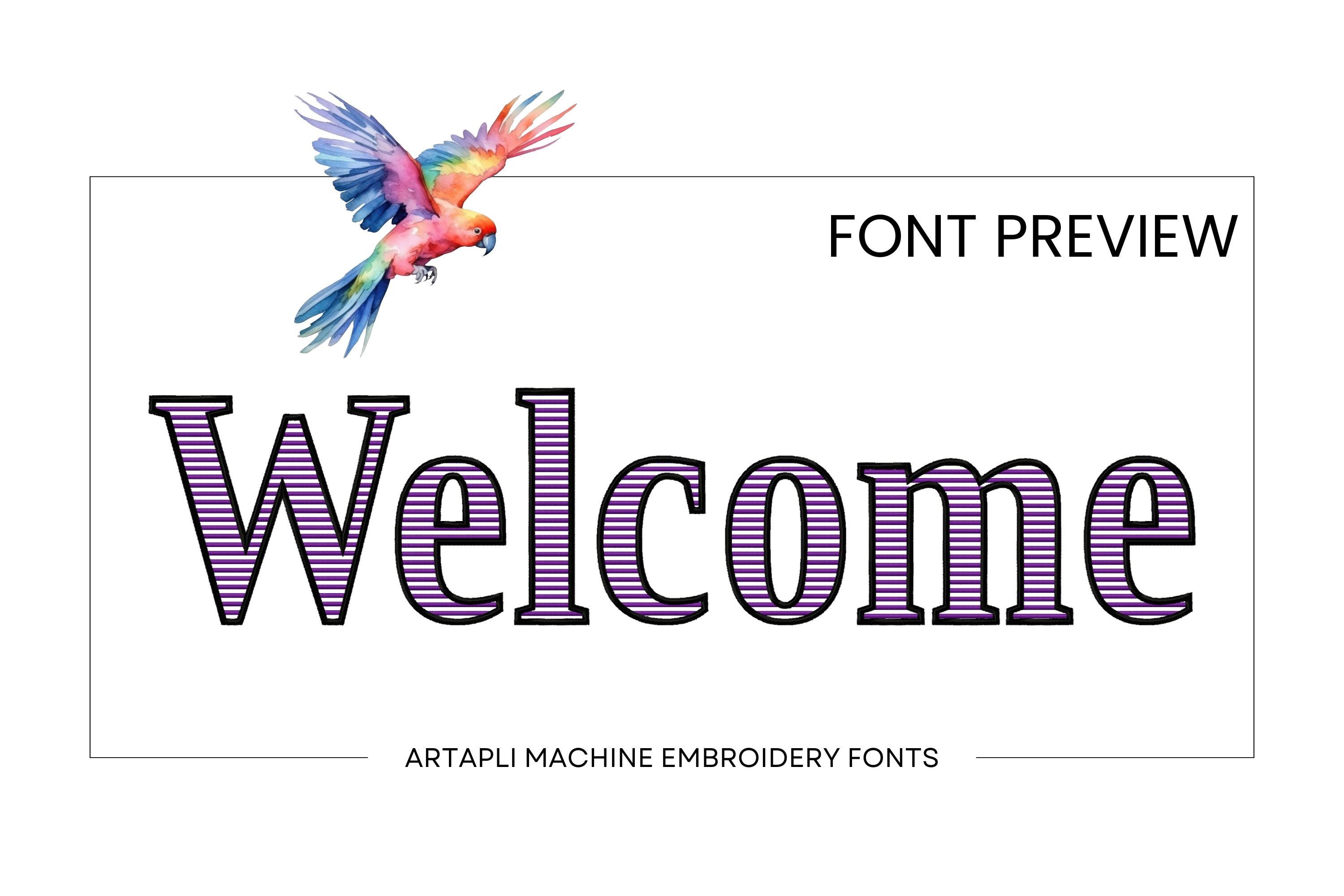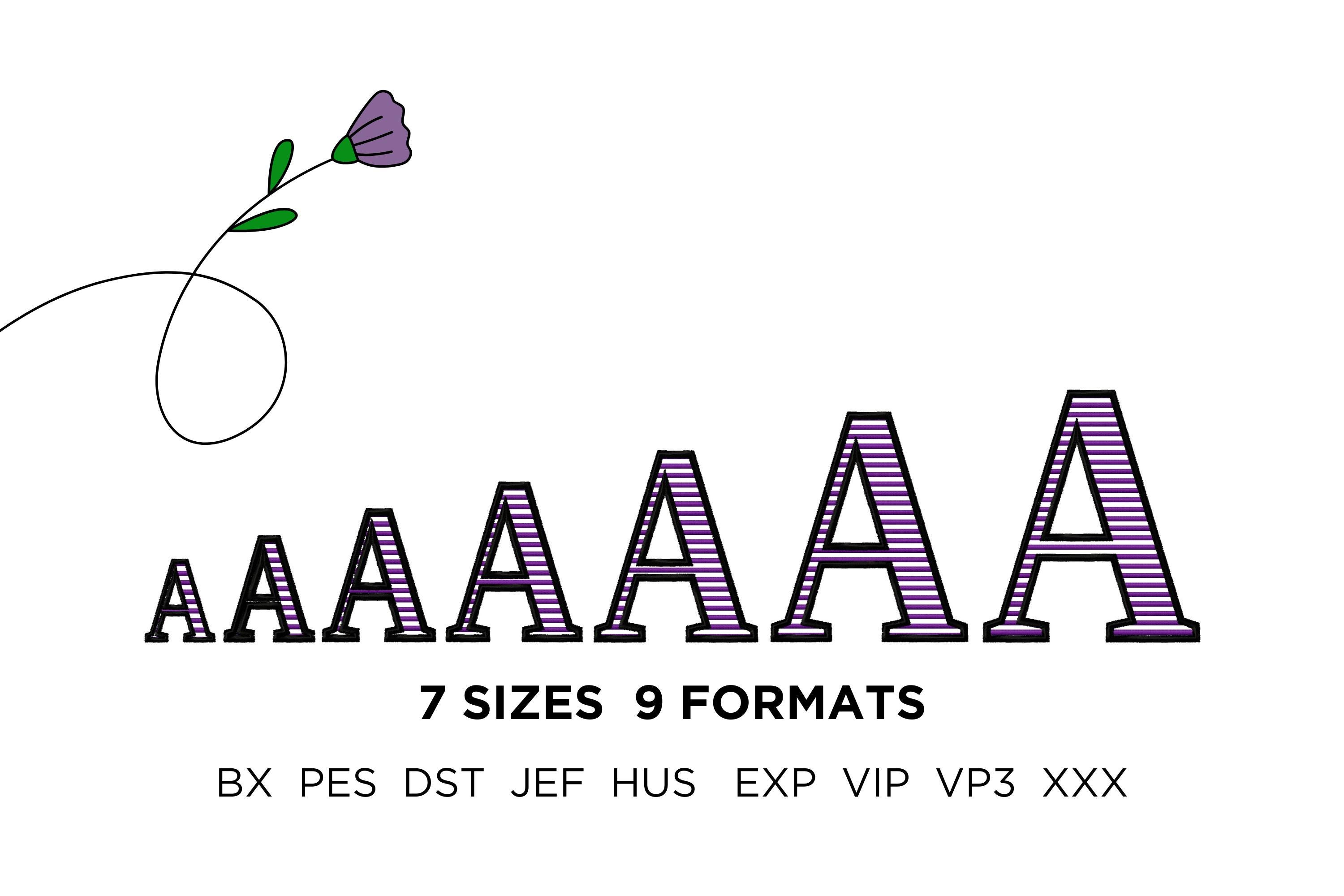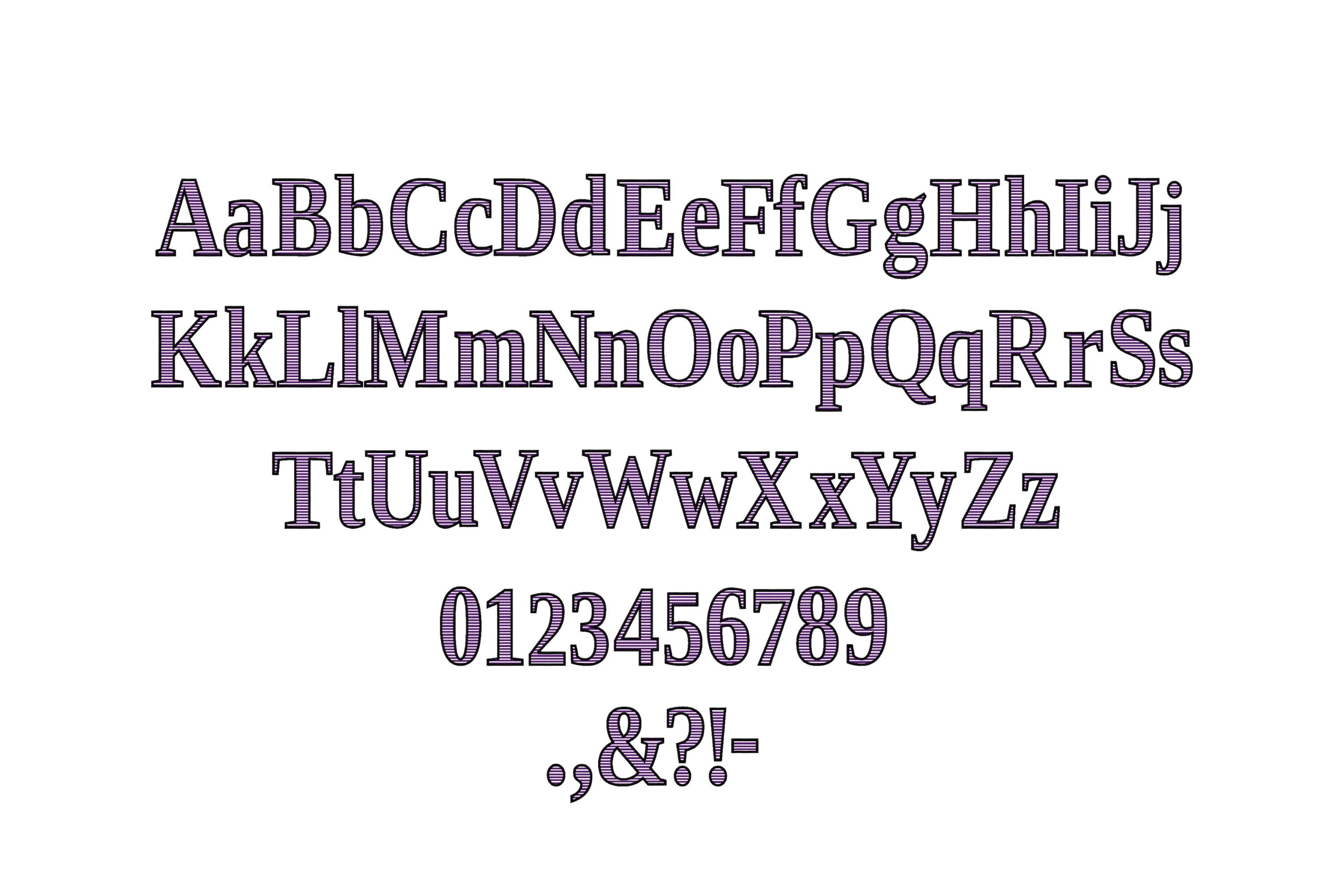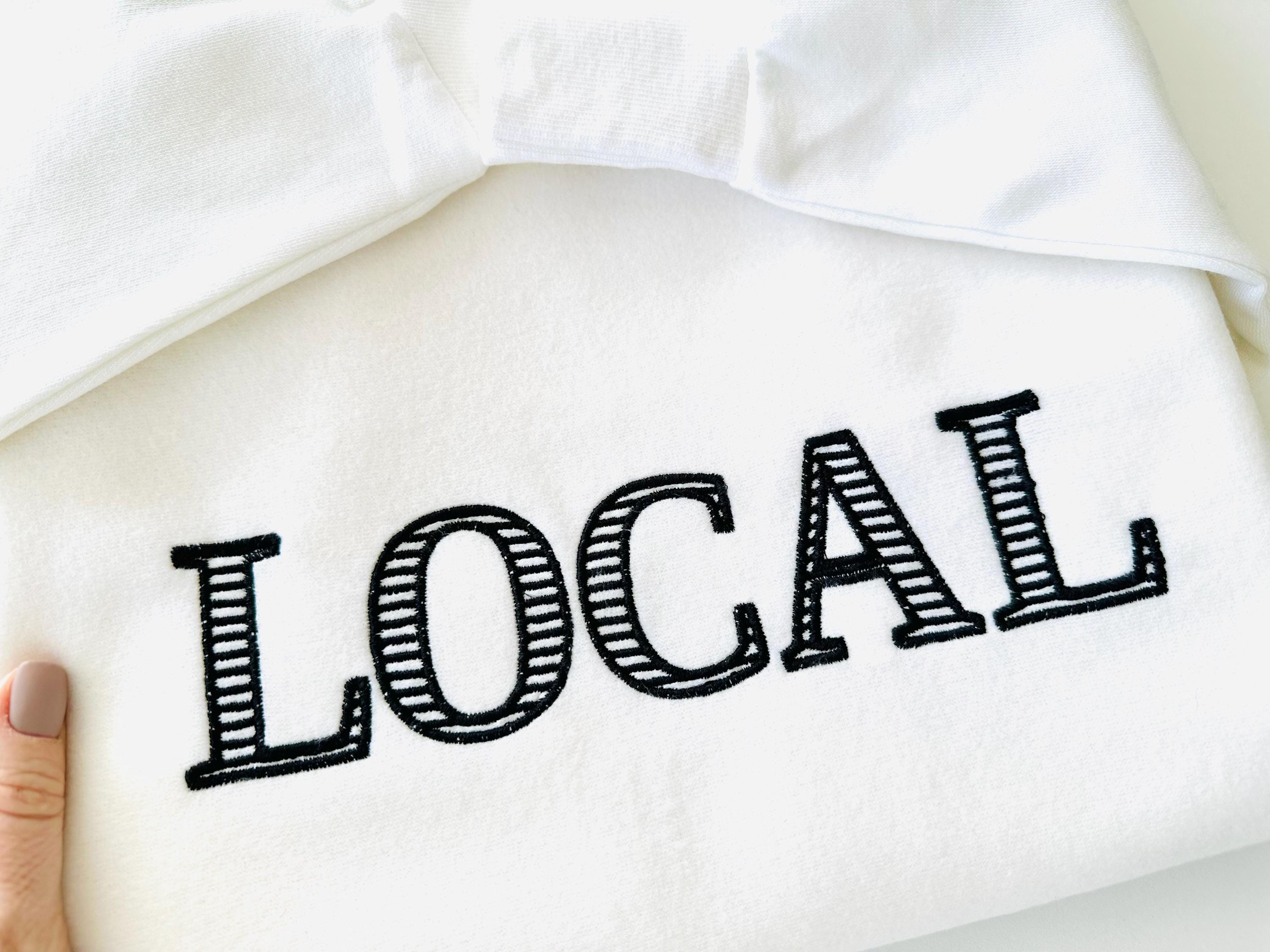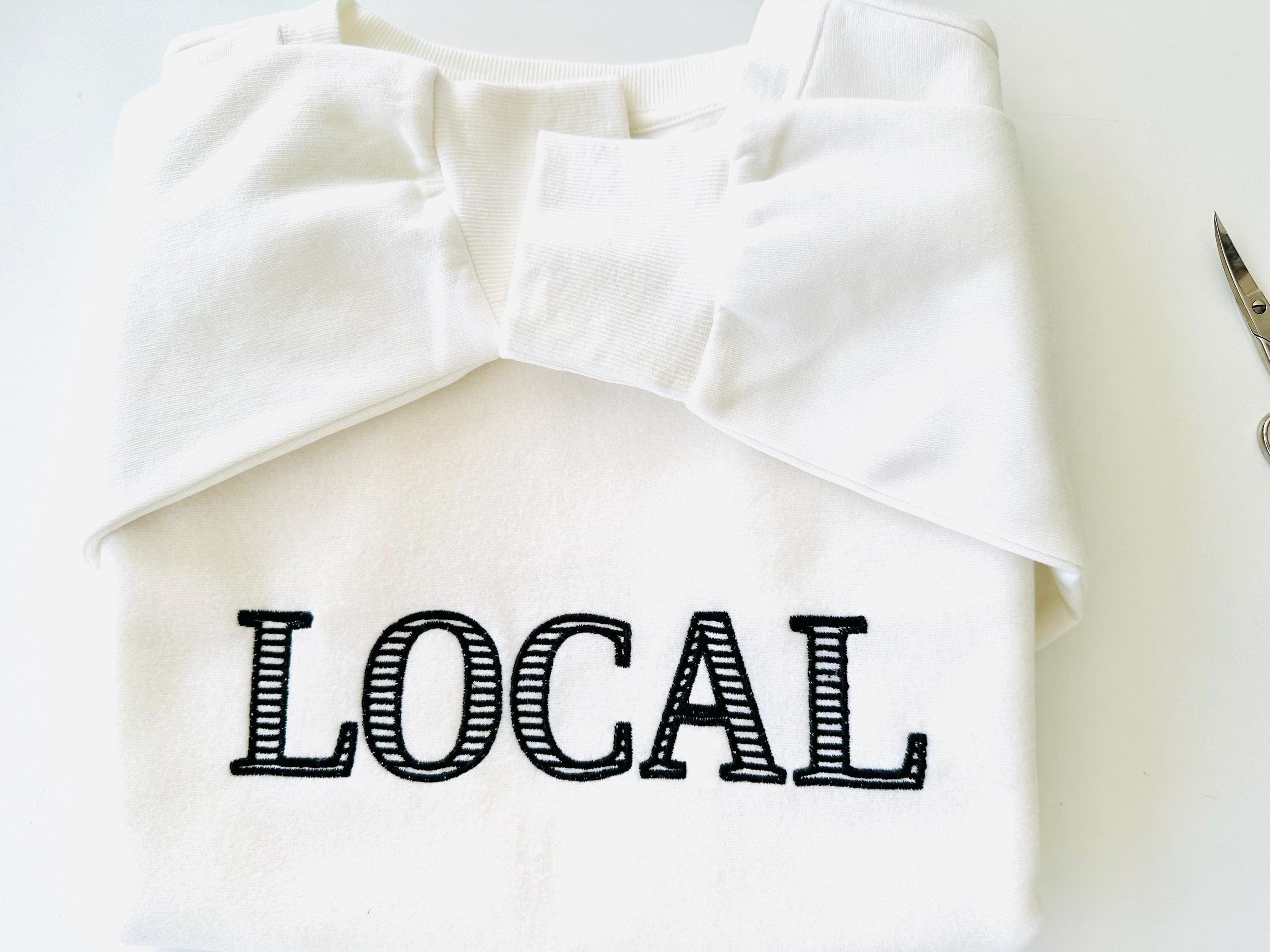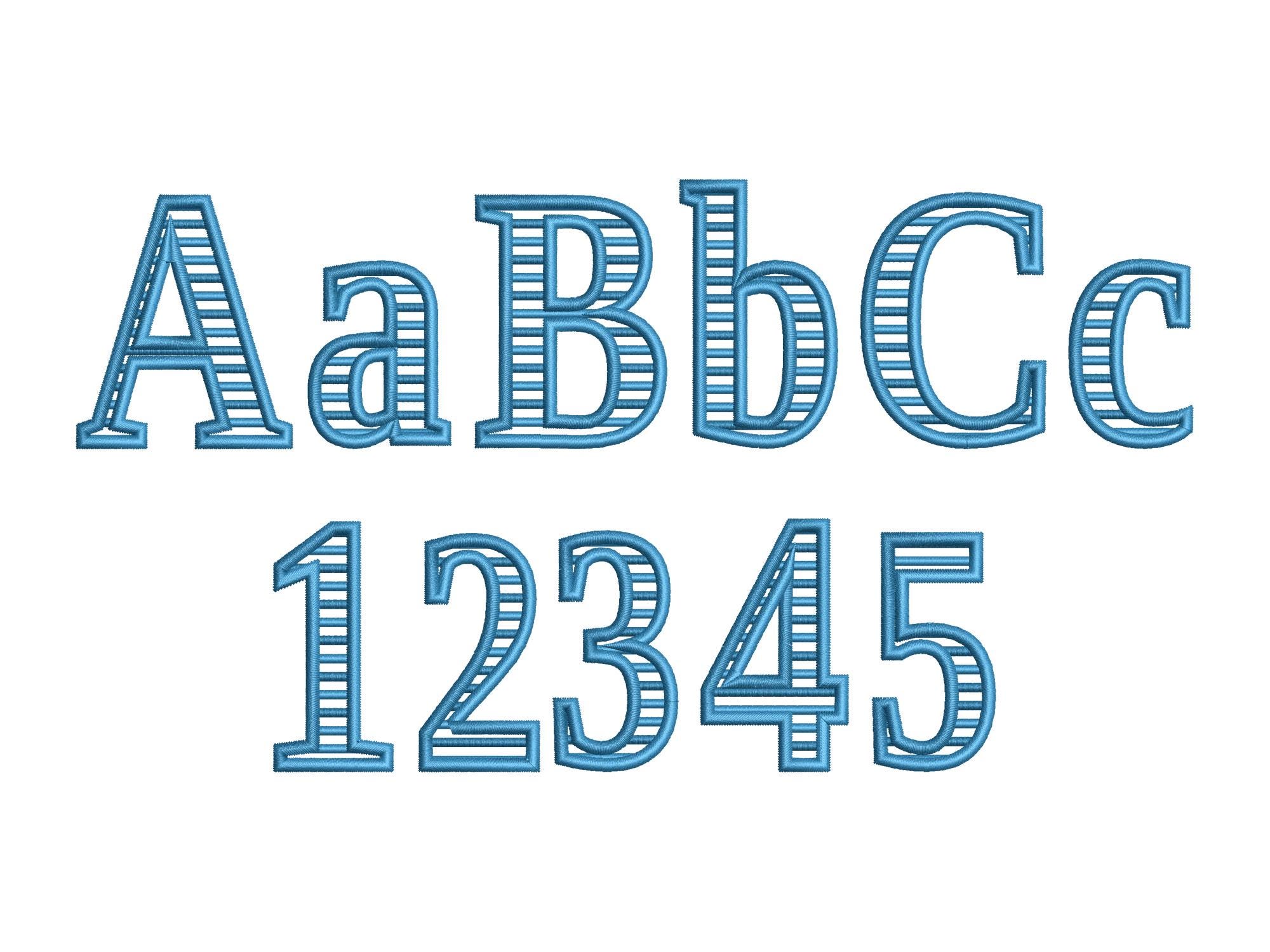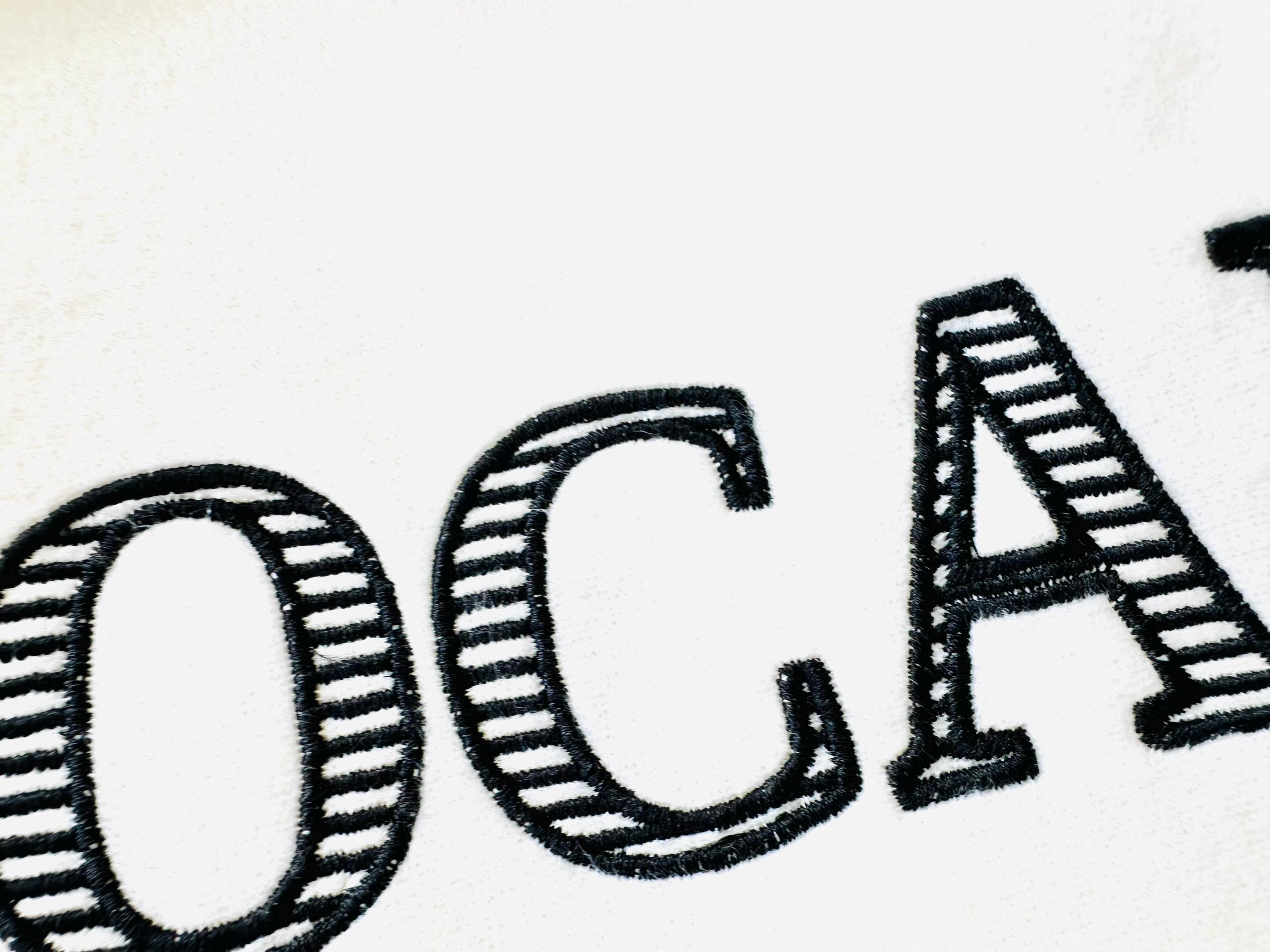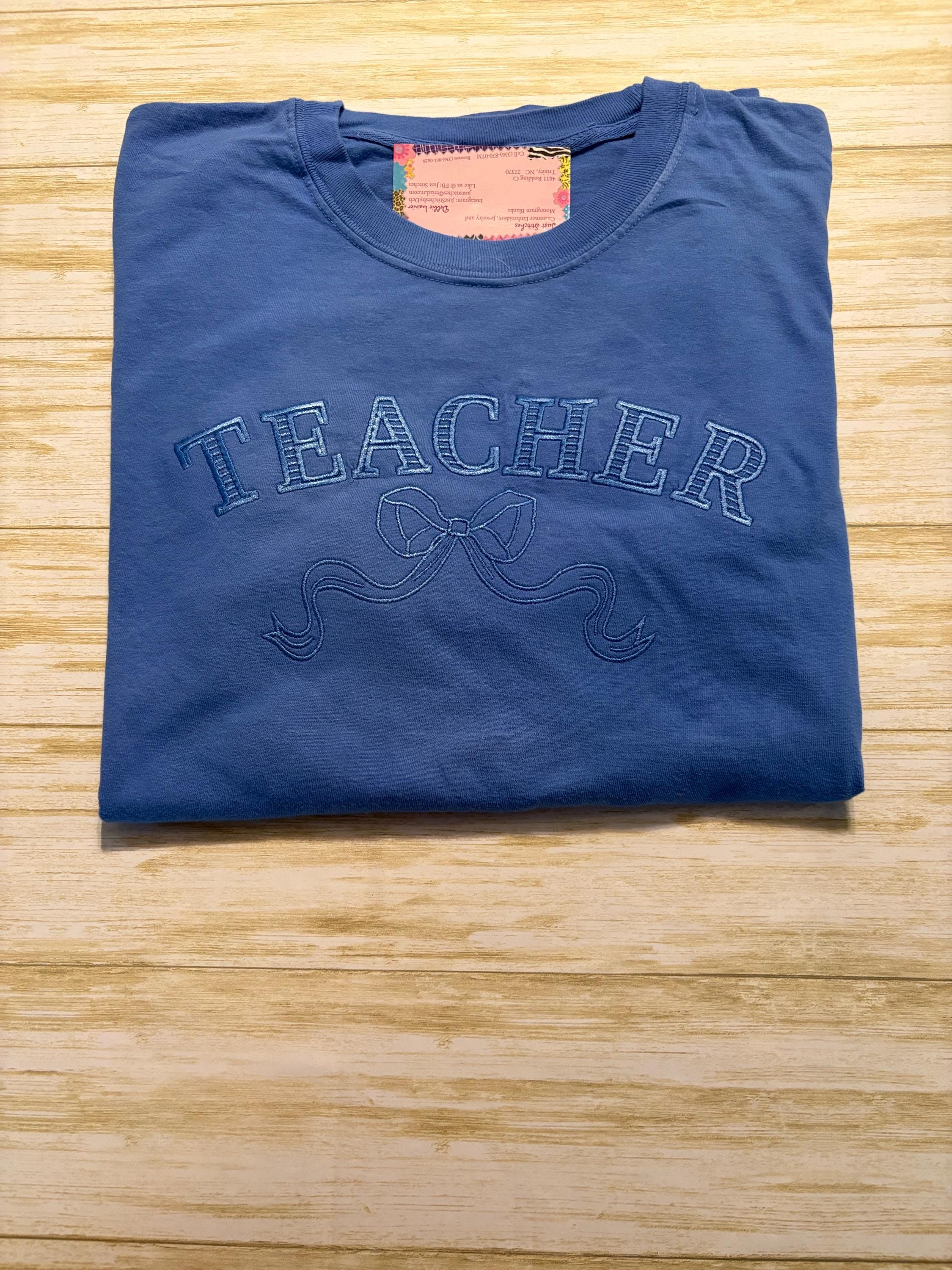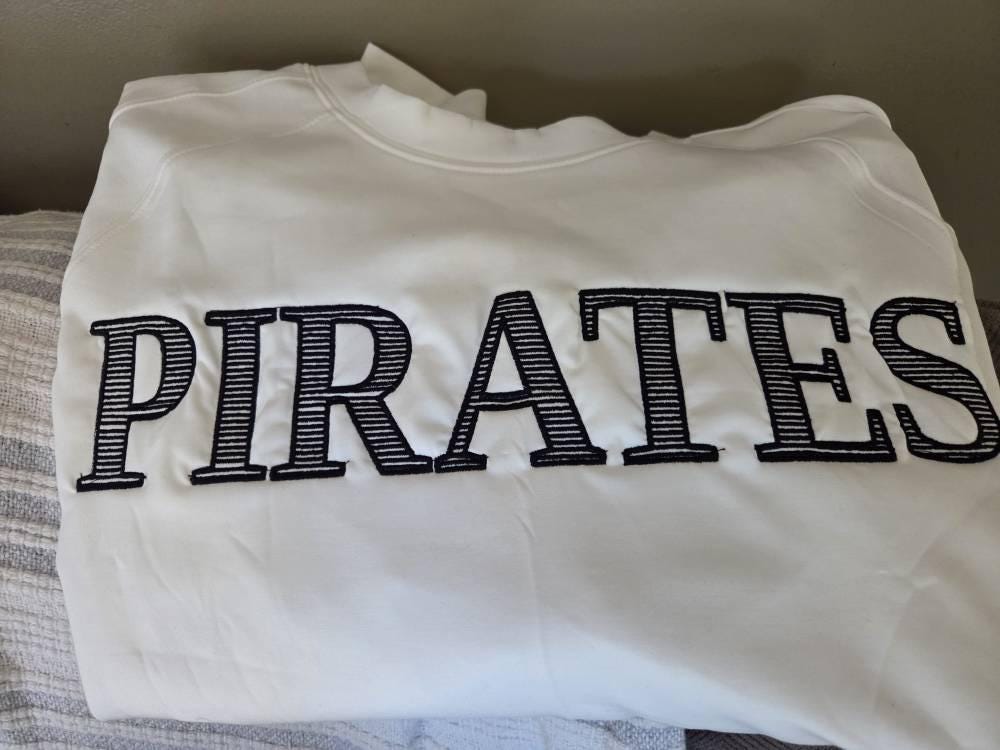
Entire alphabet A-Z uppercase and lowercase letters, numbers 0-9, and punctuation.
This is a transparent font and the background fabric looks through. Stunning effect!
Lots of stitches but is a fantastic font. Stitches great. I should have used a heavier fabric.